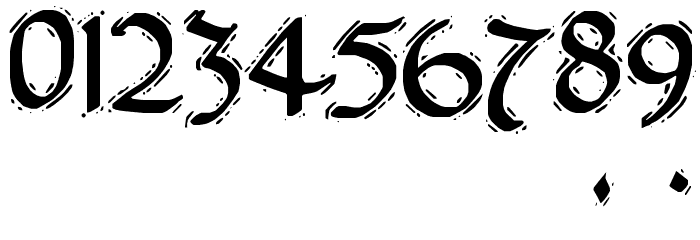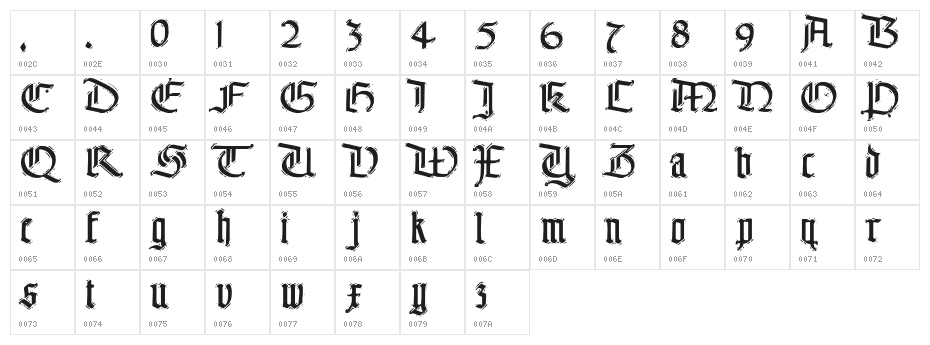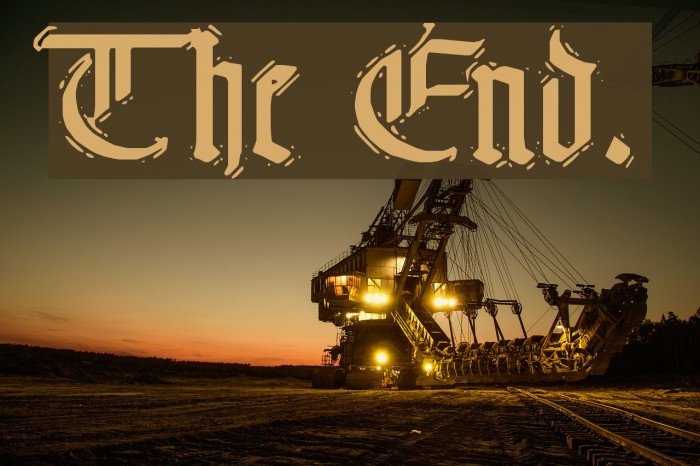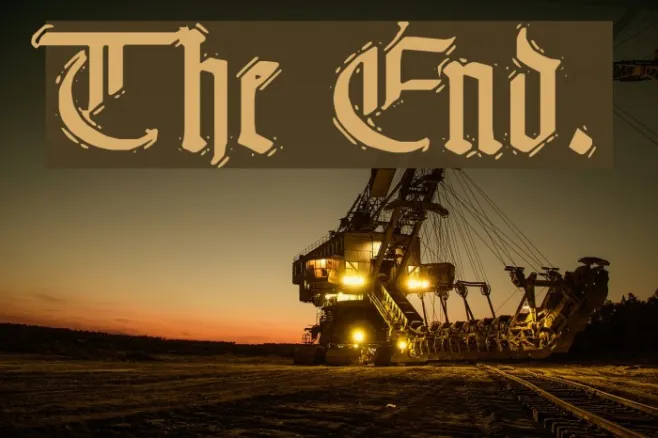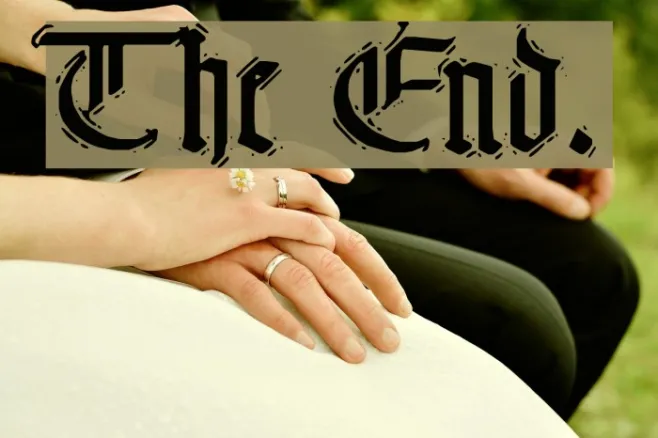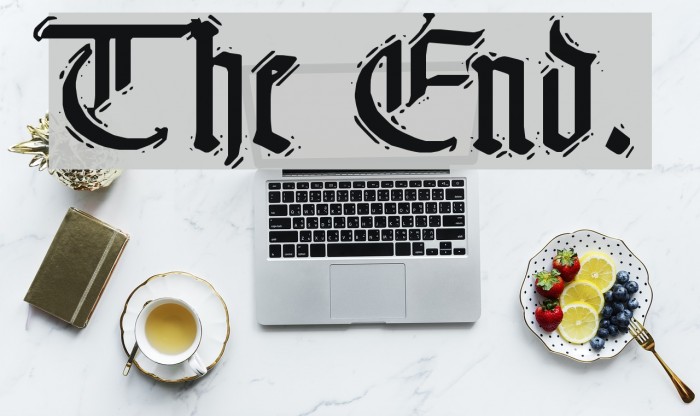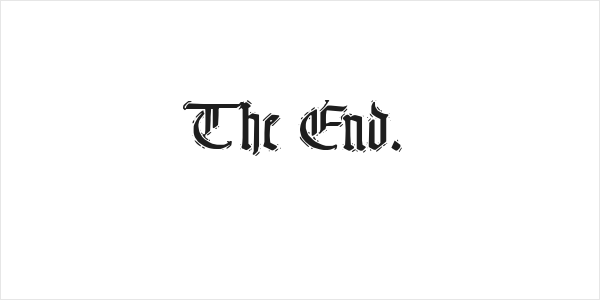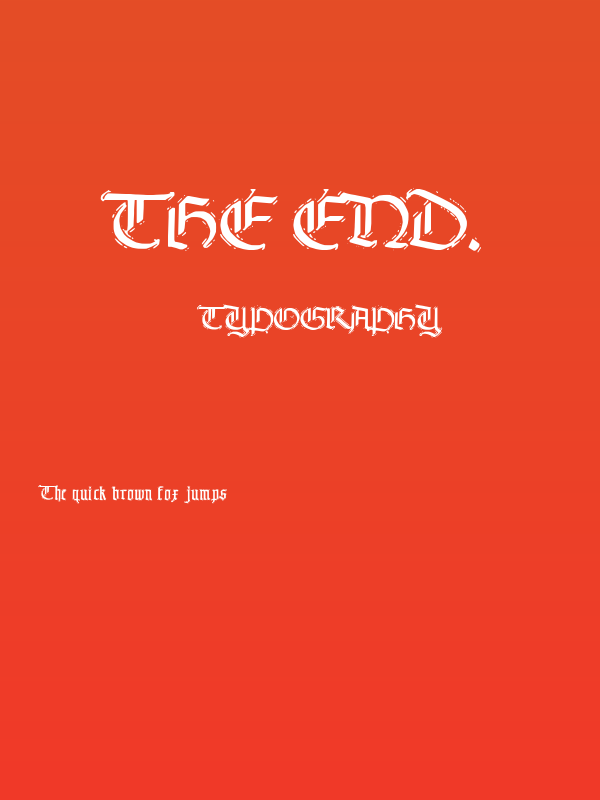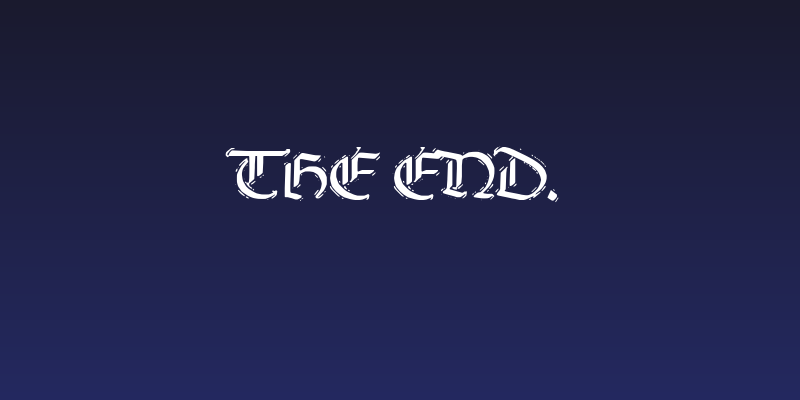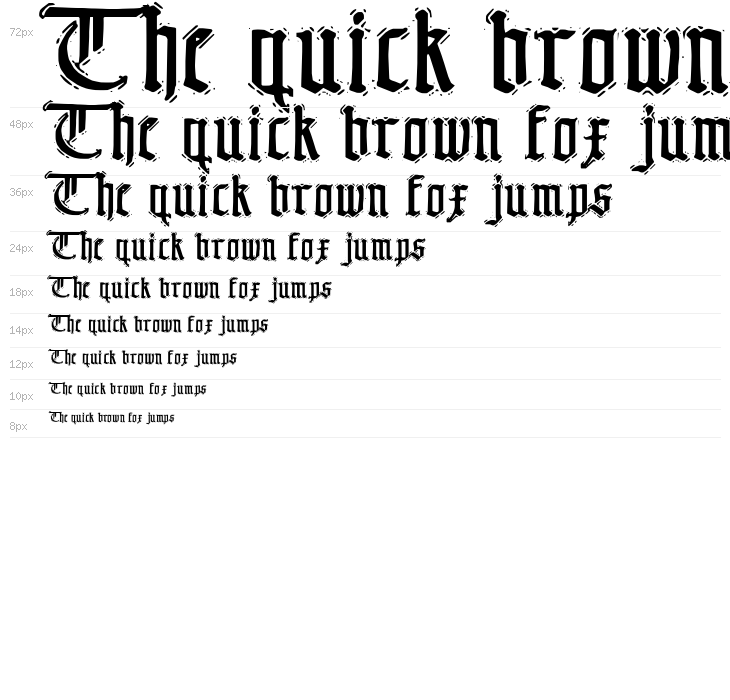
The End. Font
The End. Description
This font exhibits a traditional blackletter style, characterized by its intricate and ornate design. The letters are bold and angular, with sharp edges and a medieval aesthetic. The uppercase letters are particularly elaborate, featuring decorative flourishes and a strong vertical emphasis. The lowercase letters maintain the same stylistic elements, ensuring consistency throughout the typeface. The numerals are equally stylized, with a unique flair that complements the overall gothic appearance. This font is well-suited for projects that require a historical or dramatic touch, such as event posters, book covers, or themed branding.
| Proposed Projects | Ideal for historical-themed designs, event posters, book covers, and dramatic branding. |